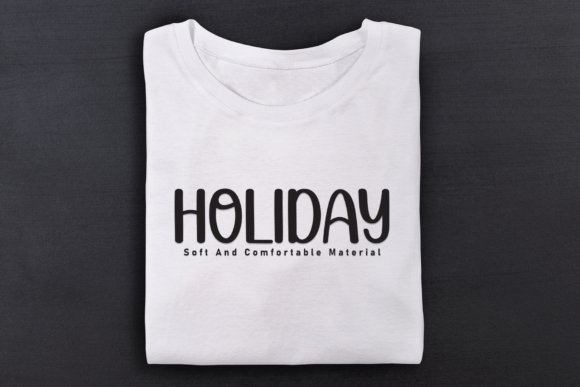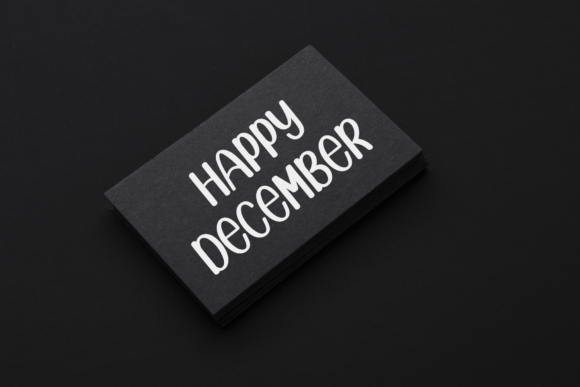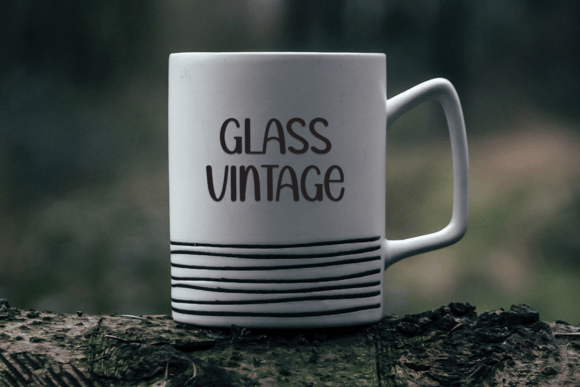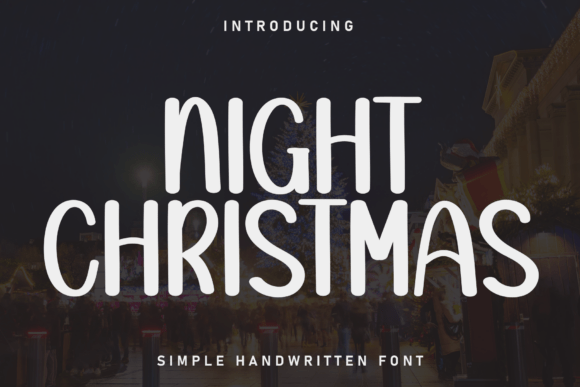
Introduction to Night Christmas Font
Night Christmas is a casual display font that blends modern simplicity with a playful, approachable vibe.
Featuring clean shapes, soft edges, and well-balanced letterforms, it captures the charm of relaxed design while maintaining clarity and style Ideal for posters, branding, packaging, and social media graphics, it adds a fresh and friendly touch to any project.
Night Christmas Font offers exceptional quality and versatility, making it a valuable addition to your design toolkit. Whether you’re creating for personal projects or commercial use, Night Christmas Font delivers professional results.